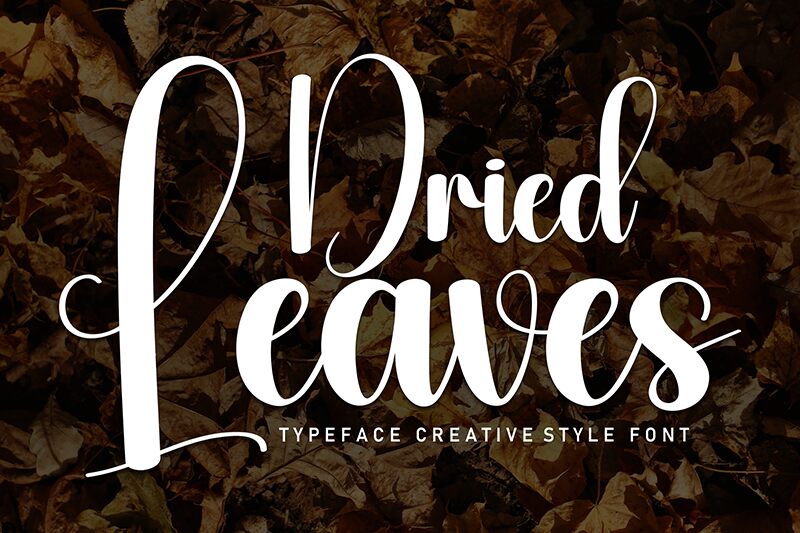
Dried Leaves
Dried Leaves font by Andi Moz is a whimsical calligraphy typeface inspired by nature. Its strokes are expressive and elegant, portraying artistic flair with every letter. Inspired by autumn leaves that dry to decorate the ground, its curves follow no rules. Instead, they rise and fall for a more contemporary and irregular calligraphy style.
Get an exceptional display when you use this free calligraphy font for headings on posters or another one of its many uses. This versatile script can be used on invitations like wedding cards or event brochures. It presents itself in the best way always in digital publishing like websites or print projects such as flyers and branding packages. Books, magazines, banners, art prints… everything goes!